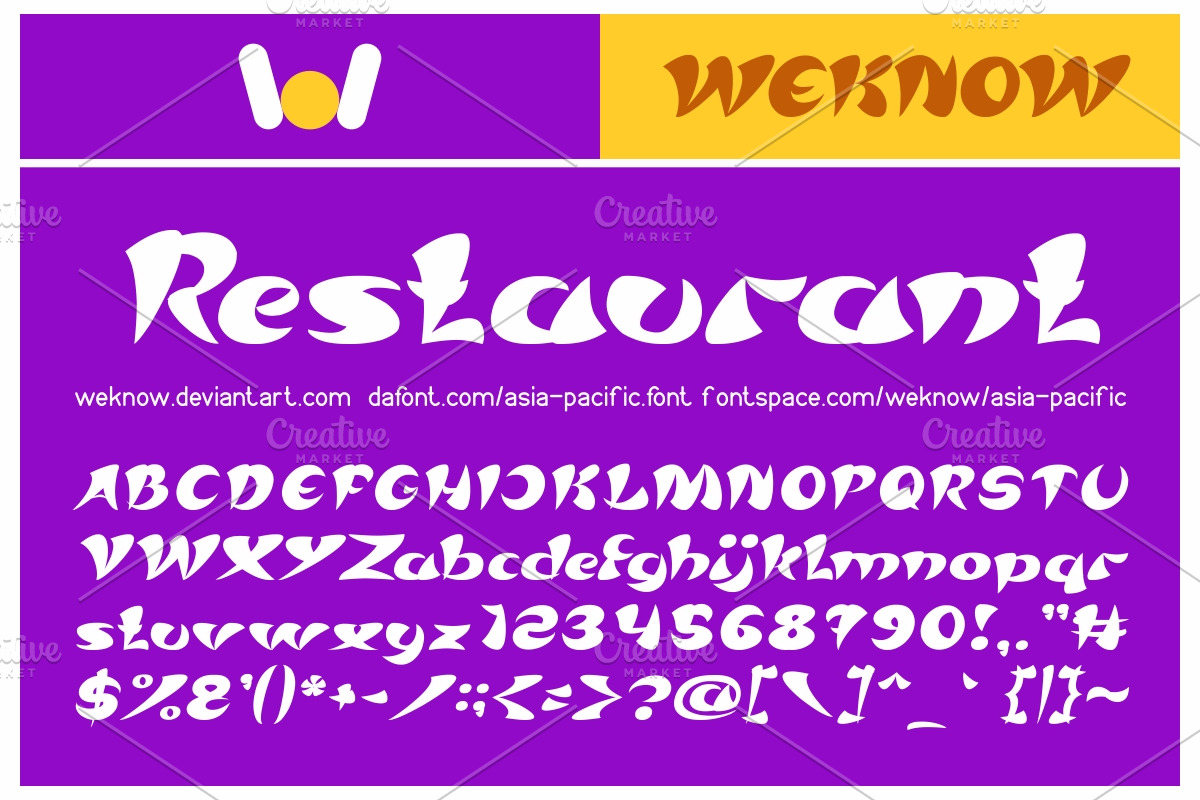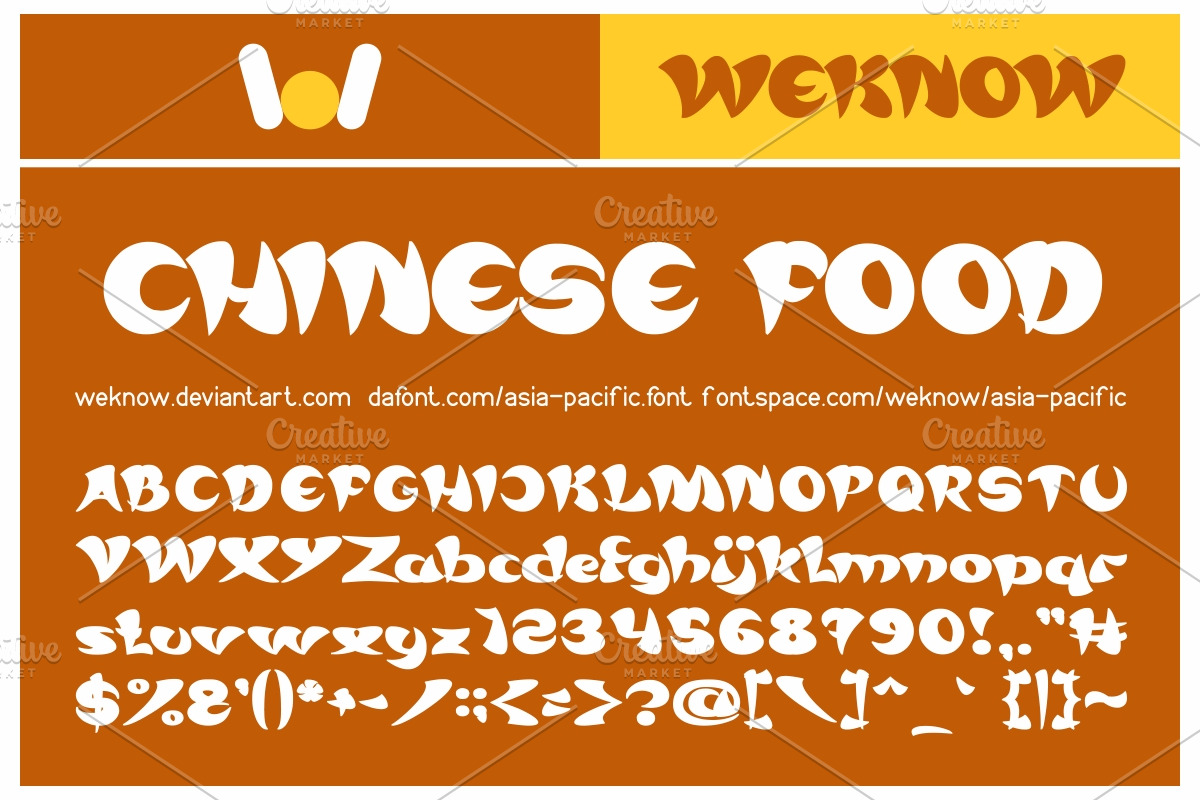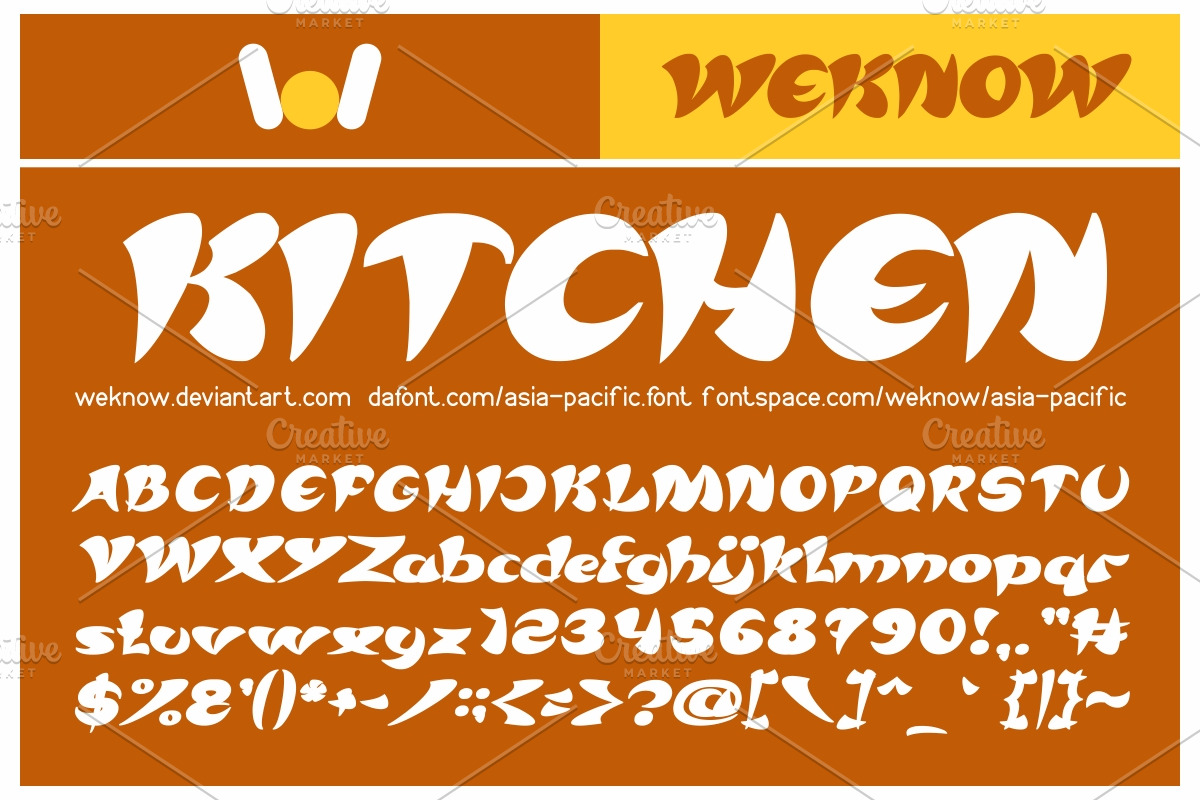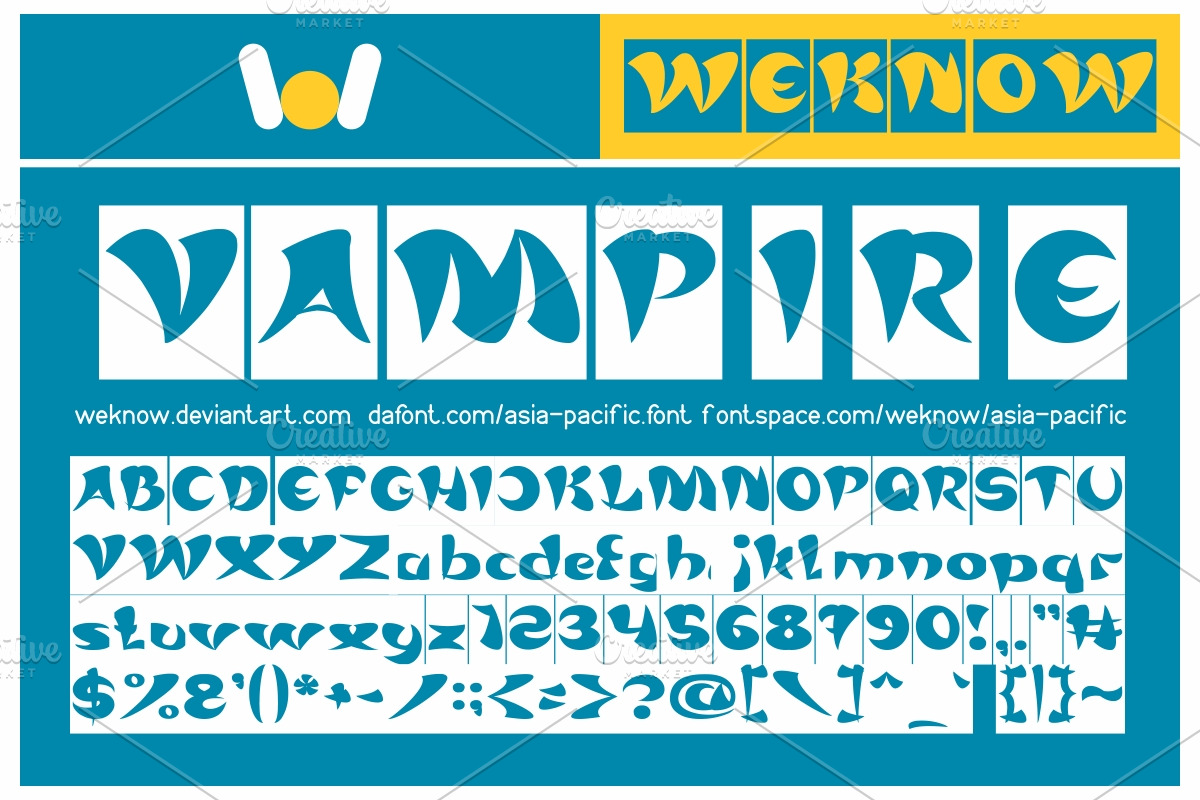
asia pacific font
asia pacific font by weknow is a font selected for branding, posters, packaging, typography.
- ASIA PACIFIC Regular
- ASIA PACIFIC Italic
- ASIA PACIFIC Bold
- ASIA PACIFIC Bold Italic
- ASIA PACIFIC-Inverse Regular
asia pacific font by weknow fits naturally into Branding, posters, packaging, typography.